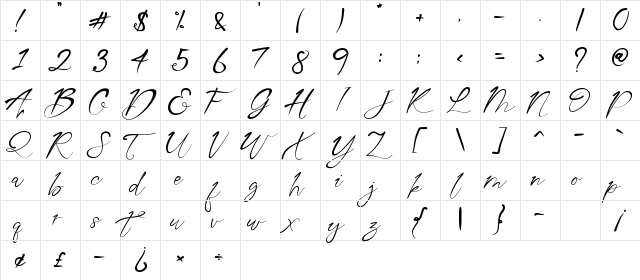
Aqua Script Regular
Design Context for Aqua Script Typeface
Aqua Script brings a calligraphic fluidity to the page — its connecting strokes and expressive curves give it an unmistakably human quality.
Font Pairing: Combine Aqua Script with a simple geometric sans for maximum contrast — the tension between flowing curves and clean structure is a classic typographic pairing.
Pro Tip: Use Aqua Script for short runs of text — names, titles, or taglines. Extended body copy in script faces tires the eye quickly.